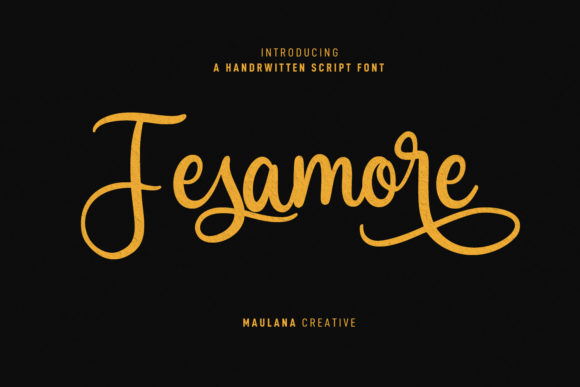
Fesamore Script: A Modern Cursive for Creative Projects
When you're working on a project that needs personality, the right typeface can make all the difference. Fesamore Script is a fancy, cursive script font that brings a distinct character to the table. It's not just another generic script; it features light contrast strokes, giving it a delicate yet confident feel. The fun characters, along with a generous set of ligatures and alternates, provide designers with the tools to create truly unique and expressive typography. This isn't a font for body text, but as a display font, it has a remarkable ability to inject elegance, warmth, and a touch of playfulness into a design.
Understanding Its Visual Personality
At its core, Fesamore Script is about balanced fluidity. The light contrast means the thick and thin strokes of the letters aren't drastically different, which helps maintain legibility at larger sizes while preserving a handwritten quality. The "fun characters" refer to its slightly whimsical letterforms—think of a swirl on a capital 'S' or a playful tail on a lowercase 'y'. The real power, however, lies in the ligatures and alternates. Ligatures are special character combinations (like 'tt' or 'fl') that flow together more naturally, while alternates offer different stylistic versions of the same letter. Using these features intentionally can prevent the "cookie-cutter" look that sometimes plagues script fonts, making your text feel genuinely custom and hand-lettered.
This script font sits in a sweet spot. It's more refined than a rough handwritten font but avoids the overly formal, traditional feel of classic calligraphic scripts. Its personality is approachable yet sophisticated, making it versatile for a range of tones—from romantic and celebratory to stylish and contemporary.
Where Fesamore Script Truly Shines
Knowing a font's strengths helps you apply it effectively. Fesamore Script is a premium font designed for impact in specific contexts. Here’s where it tends to work exceptionally well:
Branding and Logo Design
For businesses that want to project creativity, warmth, or artisanal quality, Fesamore Script can be a cornerstone of a brand identity. It's particularly effective for logos, wordmarks, and brand names in industries like boutique retail, wedding services, beauty products, gourmet food, or creative studios. The key is to ensure the font's personality aligns with the brand's core message. A bakery might use it to convey homemade charm, while a photography studio could use it to suggest elegance and artistry.
Marketing and Digital Content
In the crowded spaces of social media graphics and digital advertising, a standout headline is crucial. Fesamore Script can make a quote, a call-to-action, or a product name pop on a Instagram post, Facebook ad, or website banner. It’s also excellent for creating compelling hero text on landing pages or for stylizing email newsletter headers. When used for web design, it should be reserved for headlines or key phrases, paired with a highly readable sans serif font for body copy to ensure accessibility.
Editorial and Packaging Design
In editorial design, such as magazine covers, chapter titles, or pull quotes, this font adds a layer of visual interest and guides the reader's eye. For packaging design, it can elevate a product's shelf presence. Imagine it on a candle label, a bottle of artisanal sauce, or a cosmetic box—it instantly communicates a sense of care and design sophistication. The alternates are particularly useful here to customize the look for each specific product line.
Personal Projects and Crafting
Beyond commercial use, Fesamore Script is a fantastic creative font for personal projects. Crafters and hobbyists will find it ideal for designing wedding invitations, greeting cards, party decorations, personalized stationery, and DIY art prints. Its friendly character makes it accessible for non-designers looking to add a professional touch to their creations.
Practical Guidance for Using Fesamore Script
Integrating any display font like Fesamore Script into a project requires thoughtful consideration. Here’s how to approach it for the best results.
Evaluating Project Fit and Readability
First, ask yourself: does the project need a formal, casual, playful, or elegant tone? Fesamore Script leans towards the elegant and playful side. It’s a creative font, so it’s not suitable for long paragraphs or critical information where clarity is paramount. Always prioritize readability. Test it at the intended size—will viewers be able to decipher it quickly on a mobile screen or from a distance on a poster? If legibility is a concern, consider using it only for very short, prominent text or exploring its simpler alternate characters.
Mastering Font Pairings
A script font rarely works alone. Creating a successful font pairing is about contrast and harmony. The light, flowing nature of Fesamore Script pairs beautifully with clean, geometric sans serif fonts (like Montserrat or Lato) or with classic, sturdy serif fonts (like Garamond or Times New Roman). The sans serif pairing creates a modern, balanced look, while the serif pairing offers a more traditional, sophisticated contrast. Avoid pairing it with other ornate or handwritten fonts, as this creates visual clutter and competition.